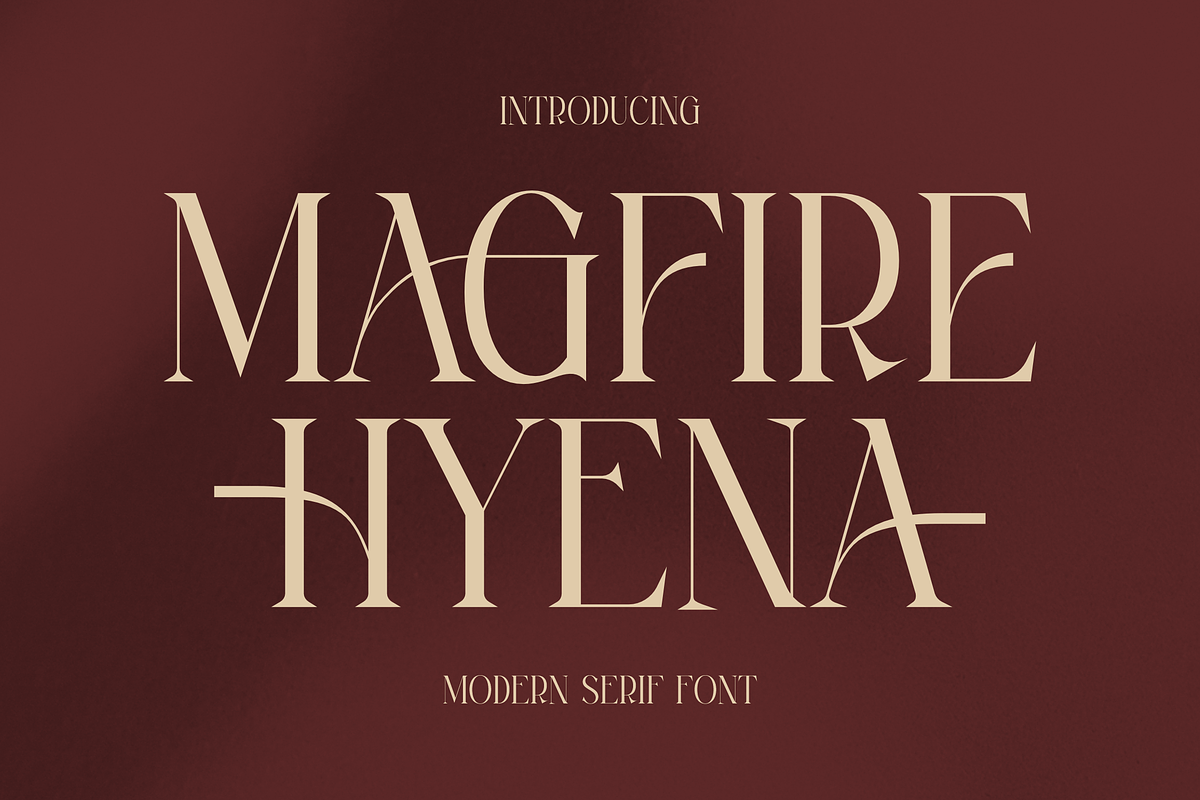
Add sophistication and a touch of bold elegance to your designs with Magfire Hyena Modern Serif Font Free Download. This modern serif typeface features high contrast strokes, sharp edges, and a clean, stylish structure—perfect for branding, editorial design, luxury packaging, and high-end websites.
Magfire Hyena combines classic serif features with a contemporary edge, making it ideal for upscale projects that require both readability and visual impact. It includes uppercase and lowercase letters, numerals, punctuation, and stylistic alternates—great for testing refined layouts in both print and digital formats.